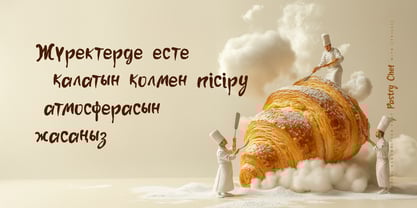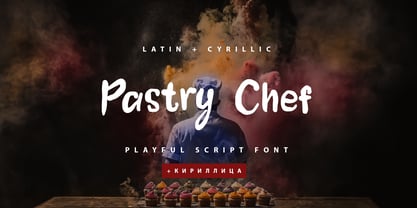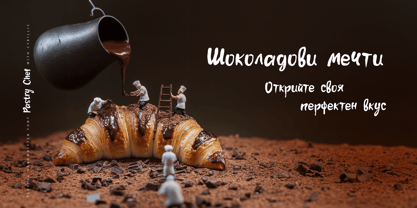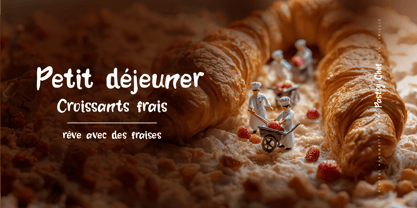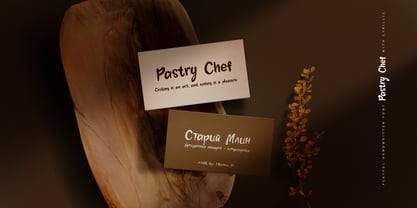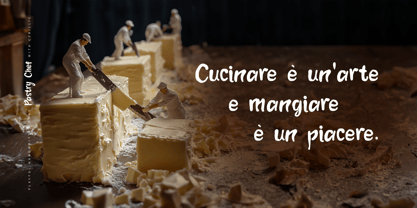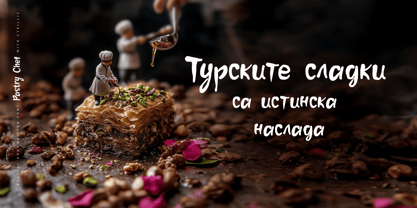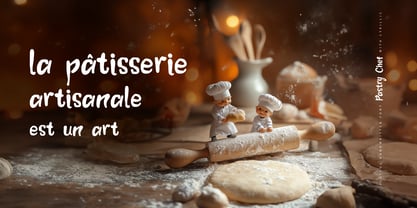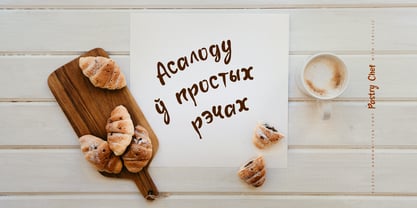
Pastry Chef Cyrillic
by Ira Dvilyuk
The Pastry Chef Cyrillic Font Family was designed by Iryna Dviliuk and published by Ira Dvilyuk. Pastry Chef Cyrillic contains 1 styles.
Pastry Chef Cyrillic script font is a pretty brush pen playful font that will look gorgeous on all your designs, wedding stationery, love stories, branding materials, logos, pretty teenage stickers, business and wedding cards, calligraphy Insta quotes, elegant fashion sketches, calligraphy love monograms and much more.
Pastry Chef playful script font contains the Cyrillic glyphs too.
Multilingual Support for 31 languages: Latin glyphs for Afrikaans, Albanian, Basque, Bosnian, Catalan, Danish, Dutch, English, Estonian, Faroese, Filipino, Finnish, French, Galician, Indonesian, Irish, Italian, Malay, Norwegian Bokmål, Portuguese, Slovenian, Spanish, Swahili, Swedish, Turkish, Welsh, Zulu.
And Cyrillic glyphs support Ukrainian, Belorussian, Bulgarian, Russian, Mongolian and Kazakh languages.
Designers: Iryna Dviliuk